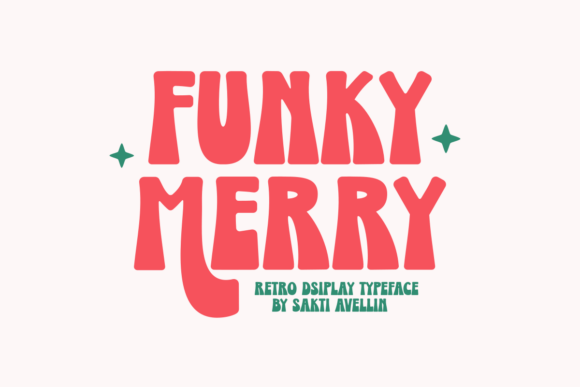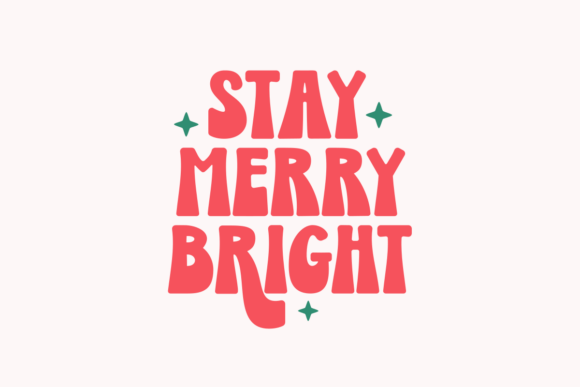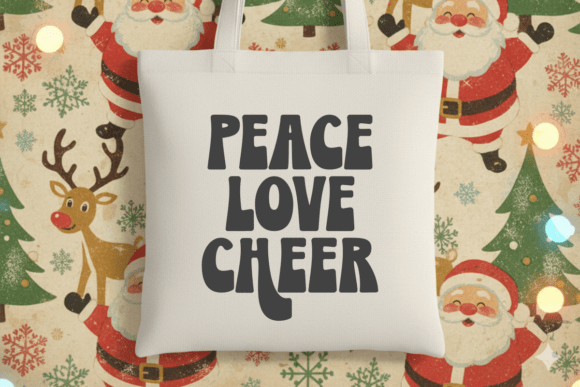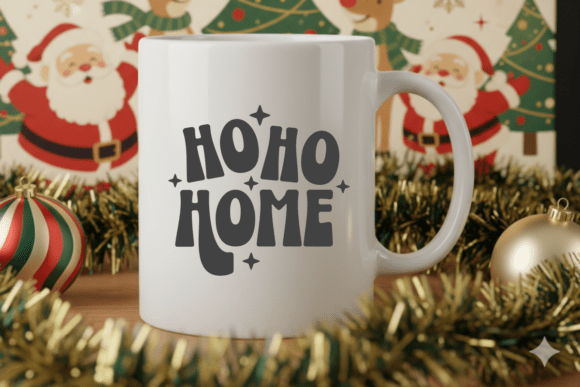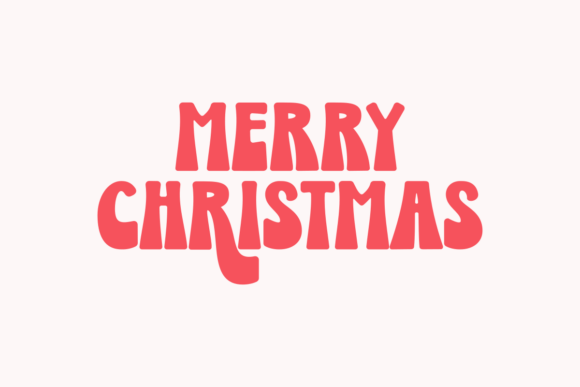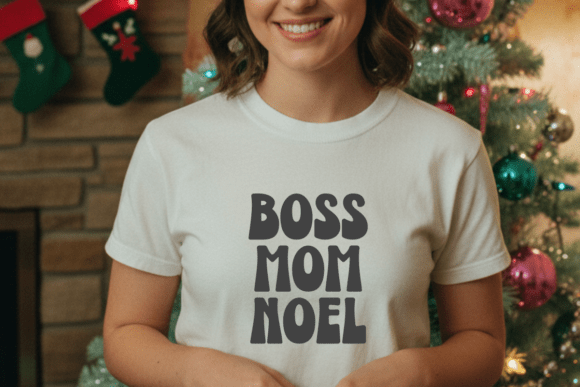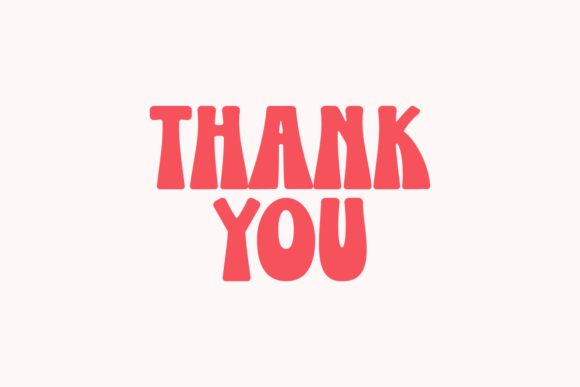
The Joy of Holiday Design: Introducing Funky Merry Font
As the holiday season approaches, we’re reminded of the importance of creating joyful, festive designs that bring people together. For designers, this means finding the perfect font to capture the playful, nostalgic spirit of the season. And that’s where Funky Merry Font comes in – a bold and bouncy retro display font that’s guaranteed to add a dash of holiday cheer to your projects.
With its rounded, chunky characters and exaggerated forms, Funky Merry Font is the perfect choice for holiday greetings, cheerful branding, retro posters, and more. Its PUA-encoded design ensures effortless access to all glyphs, swashes, and alternate characters, making it a valuable asset for designers looking to add a unique touch to their work. Whether you’re designing party invites, merchandise, or digital graphics, Funky Merry Font is the key to spreading good vibes and making a lasting impression.
Funky Merry Font Key Features
- Font Style: Funky, playful, and festive font perfect for holiday-themed designs.
- Character Set: Includes a wide range of characters, including uppercase and lowercase letters, numbers, and special characters.
- Unique Characteristics: Distinctive, swirly shapes and festive ornaments make it perfect for adding a fun touch to your designs.
Funky Merry Font Review
Funky Merry Font is a unique and playful font that can add a touch of whimsy to your designs ✨. It’s perfect for projects that require a fun and festive vibe, such as holiday cards, party invitations, or social media graphics.
The font’s irregular shapes and bold lines make it stand out, and its wide range of styles (from bold to italic) provides versatility in usage ✨. It’s also highly legible, even at smaller font sizes, which is a major plus.
- Unique and playful design ✨
- Highly legible, even at smaller font sizes
- Wide range of styles (bold, italic, etc.)
- Perfect for holiday-themed designs
- May not be suitable for formal or professional designs ⚠️
- Can be overwhelming if used extensively, as it’s quite bold and attention-grabbing ⚠️
- Not as versatile for non-holiday-themed designs
Overall, Funky Merry Font is a great choice for designers looking to add a fun and festive touch to their projects ✨. While it may not be suitable for every design scenario, it’s a great option for holiday-themed projects or anything that requires a playful vibe.
Getting the Most Out of the Funky Merry Font
For the best results, use the Funky Merry Font in bold or italic styles to add emphasis.
Combine the font with bold graphics and bright colors to create a festive atmosphere.
The Funky Merry Font is ideal for:
Christmas and New Year’s promotions
Holiday greeting cards and invitations
Winter-themed social media posts and ads
Alternatives to “Funky Merry Font” for Designers
Great Vibes is a fun and energetic script font that is perfect for adding a playful touch to your designs. It’s great for use in titles, headings, and other areas where you want to convey a sense of excitement and joy.
Compared to Funky Merry Font, Great Vibes has a more fluid and dynamic feel, making it suitable for a wider range of design projects.
Carolyna Pro is a modern and elegant script font that is perfect for adding a touch of sophistication to your designs. It’s great for use in titles, headings, and other areas where you want to convey a sense of luxury and refinement.
Compared to Funky Merry Font, Carolyna Pro has a more refined and polished feel, making it suitable for high-end design projects.
Pacifico is a beautiful and elegant script font that is perfect for adding a touch of warmth and personality to your designs. It’s great for use in titles, headings, and other areas where you want to convey a sense of relaxation and calmness.